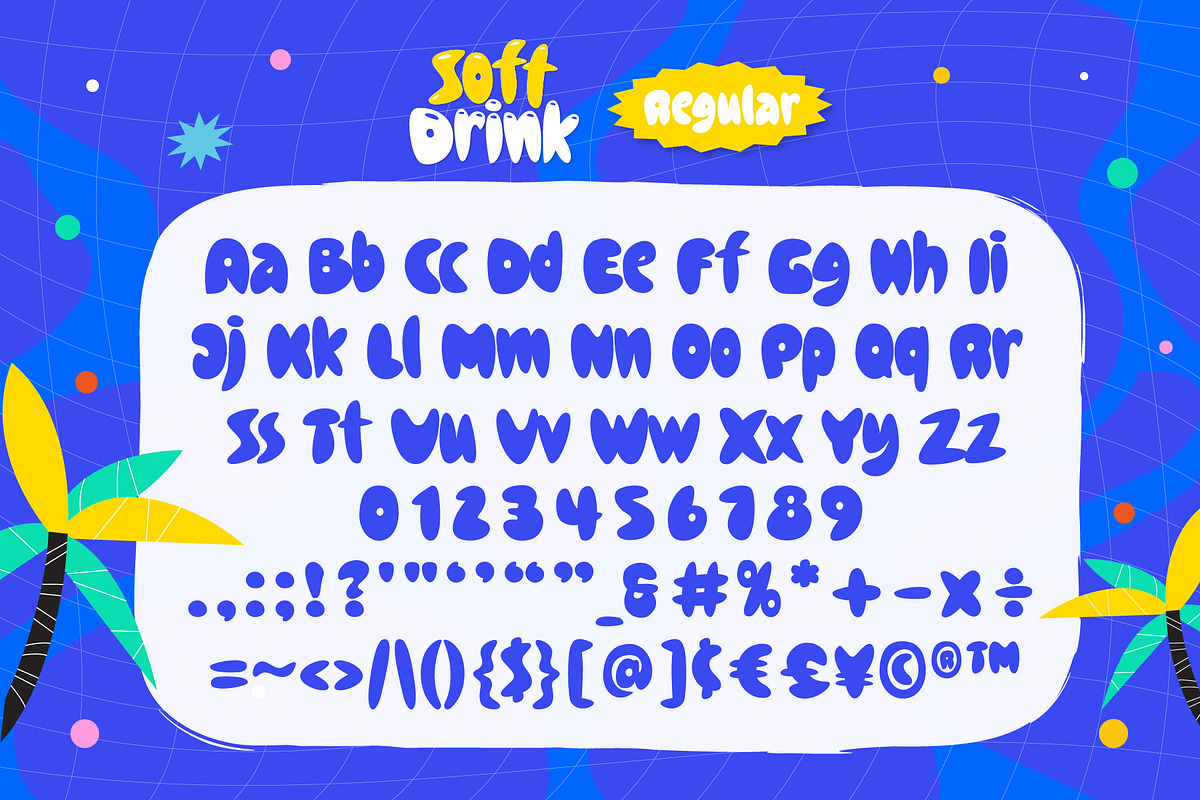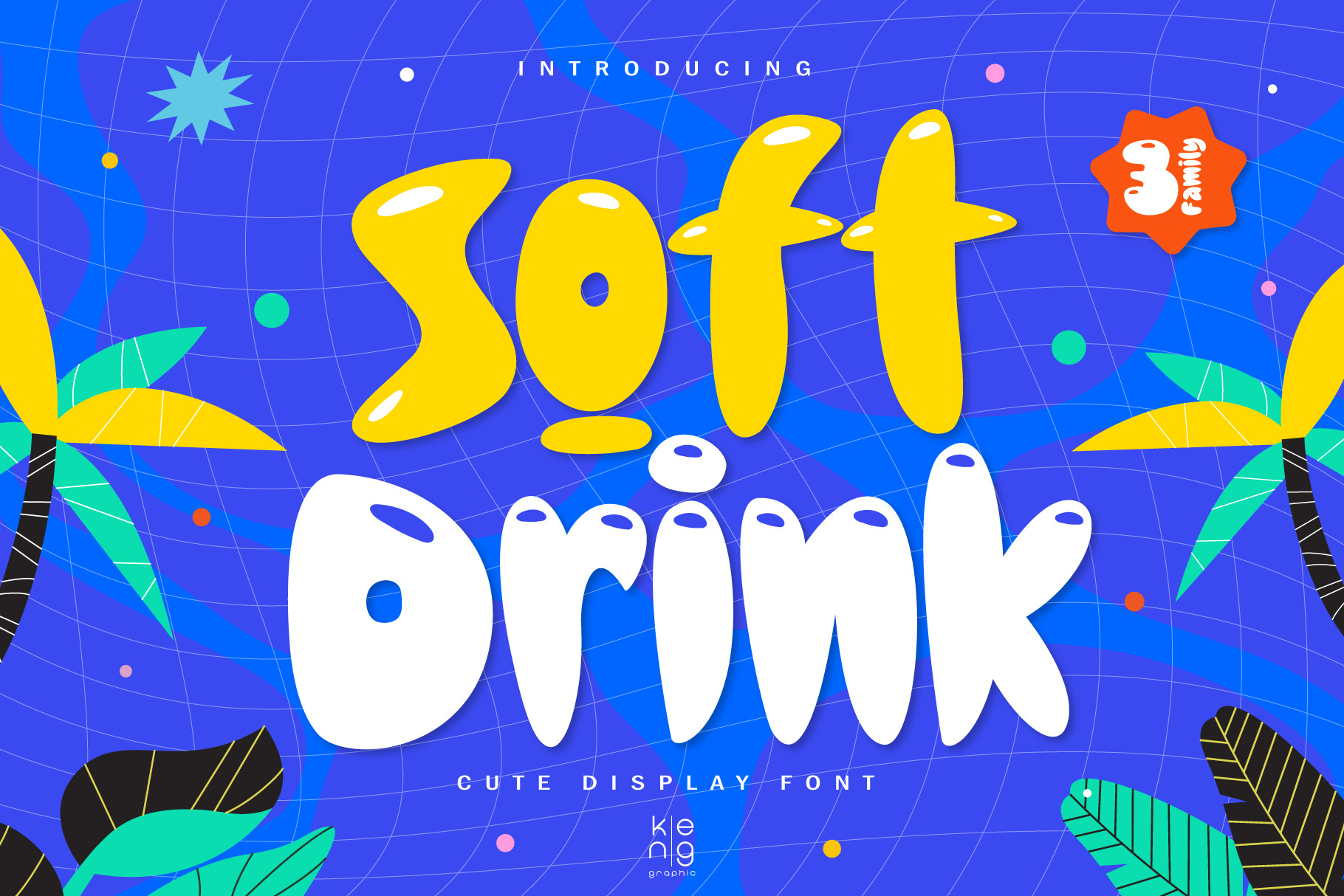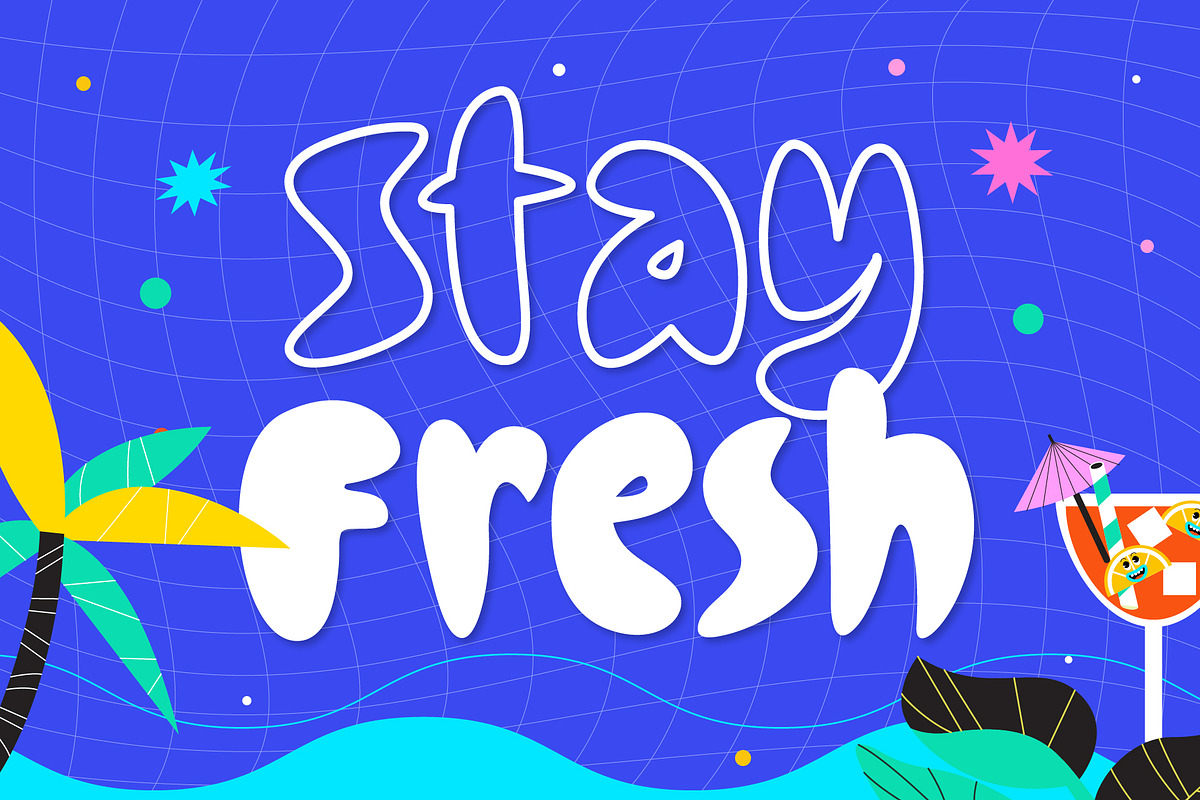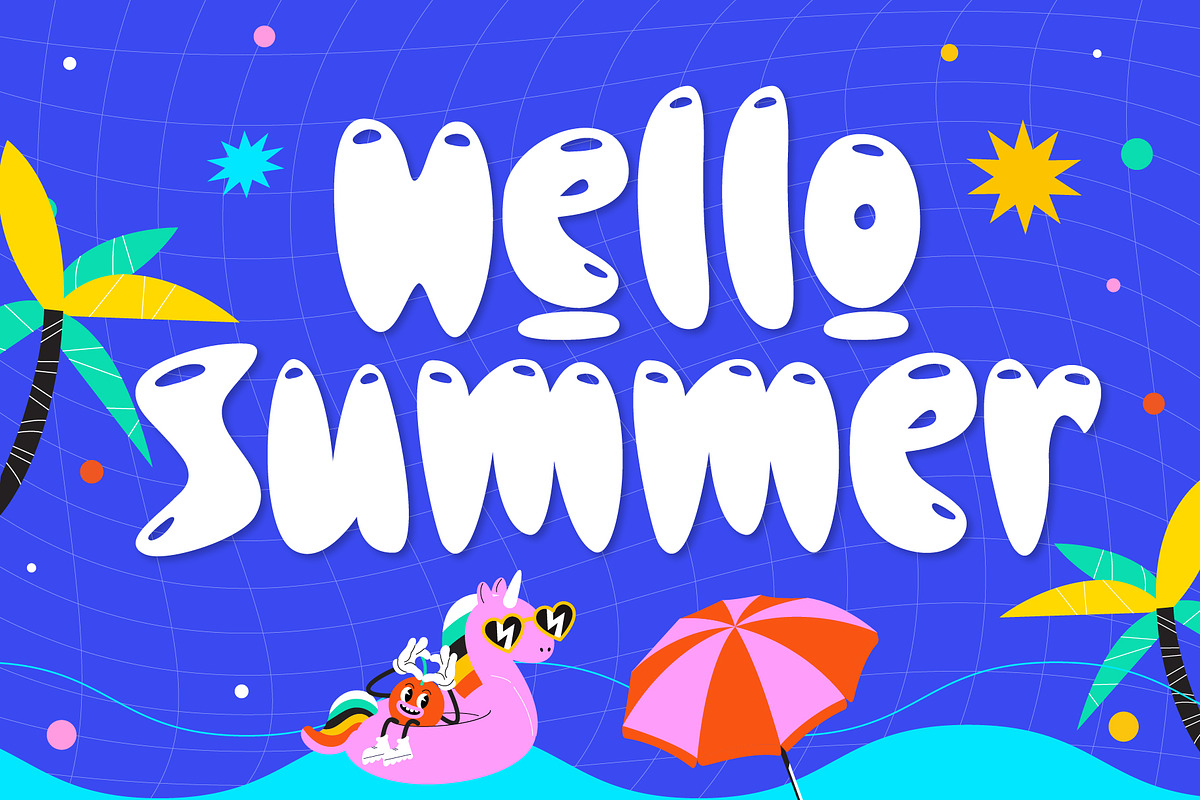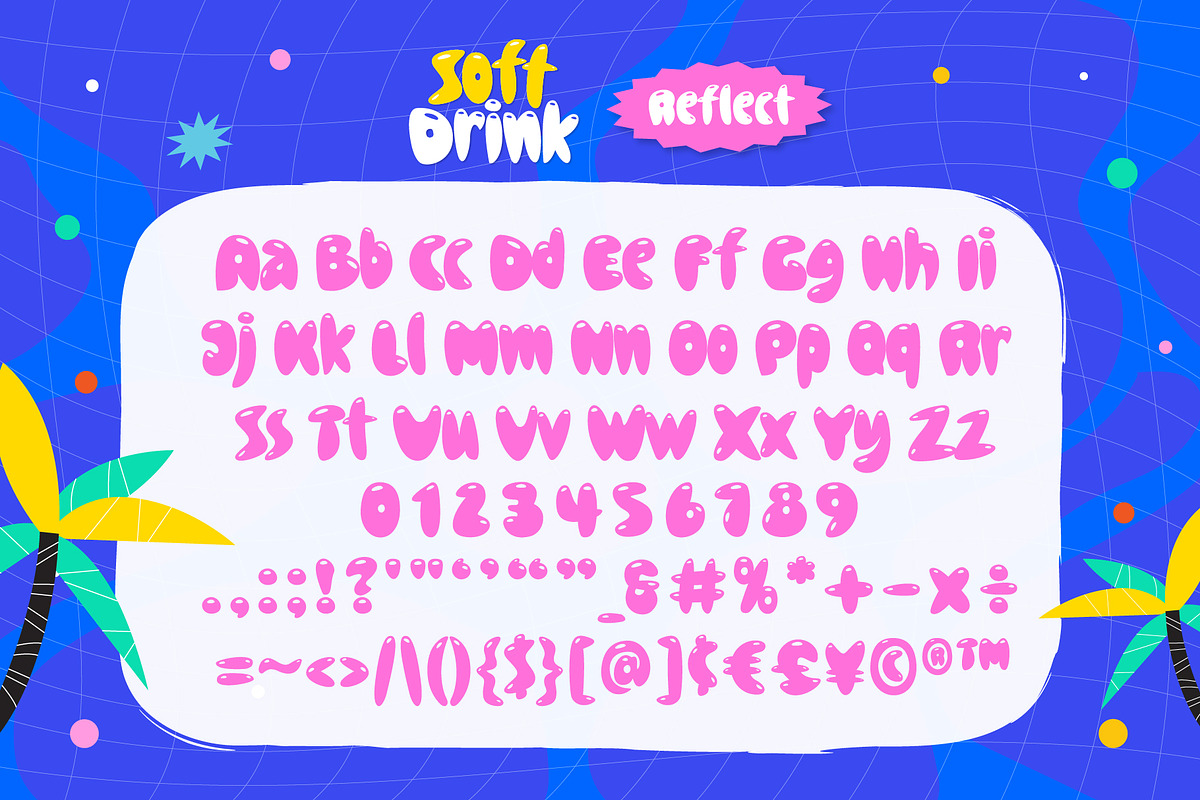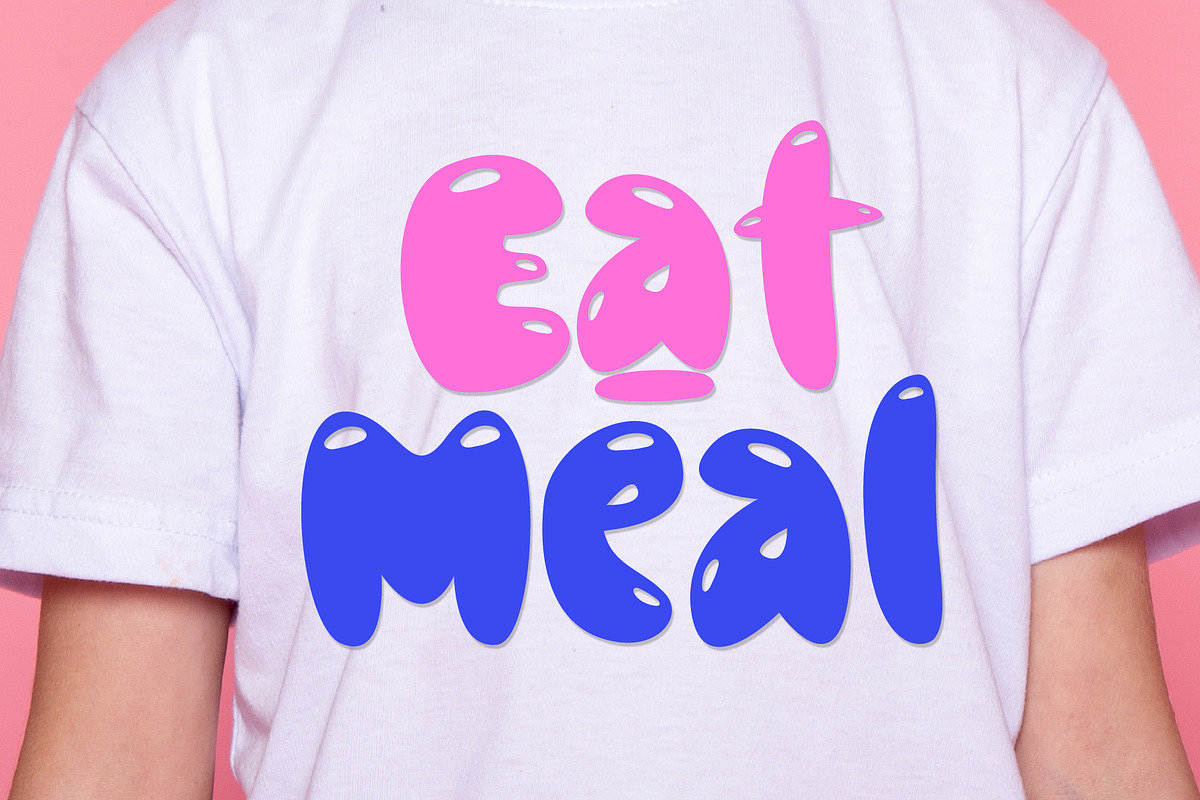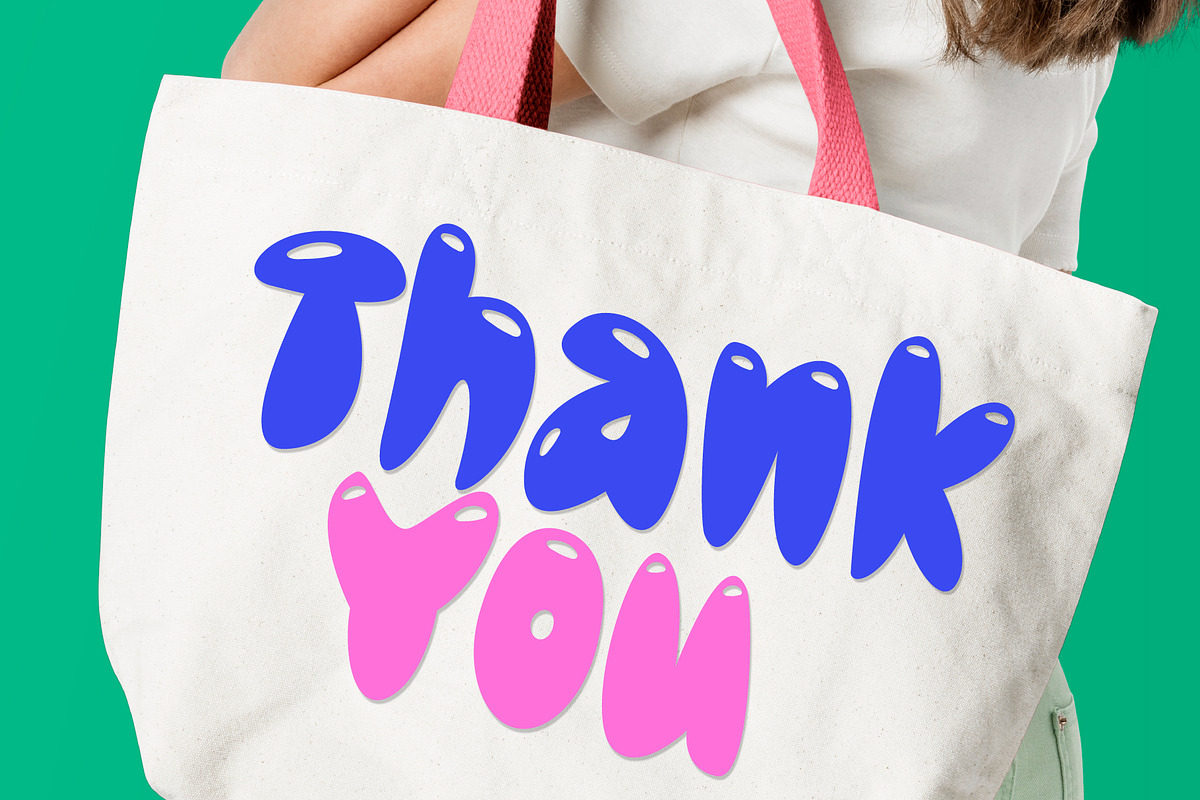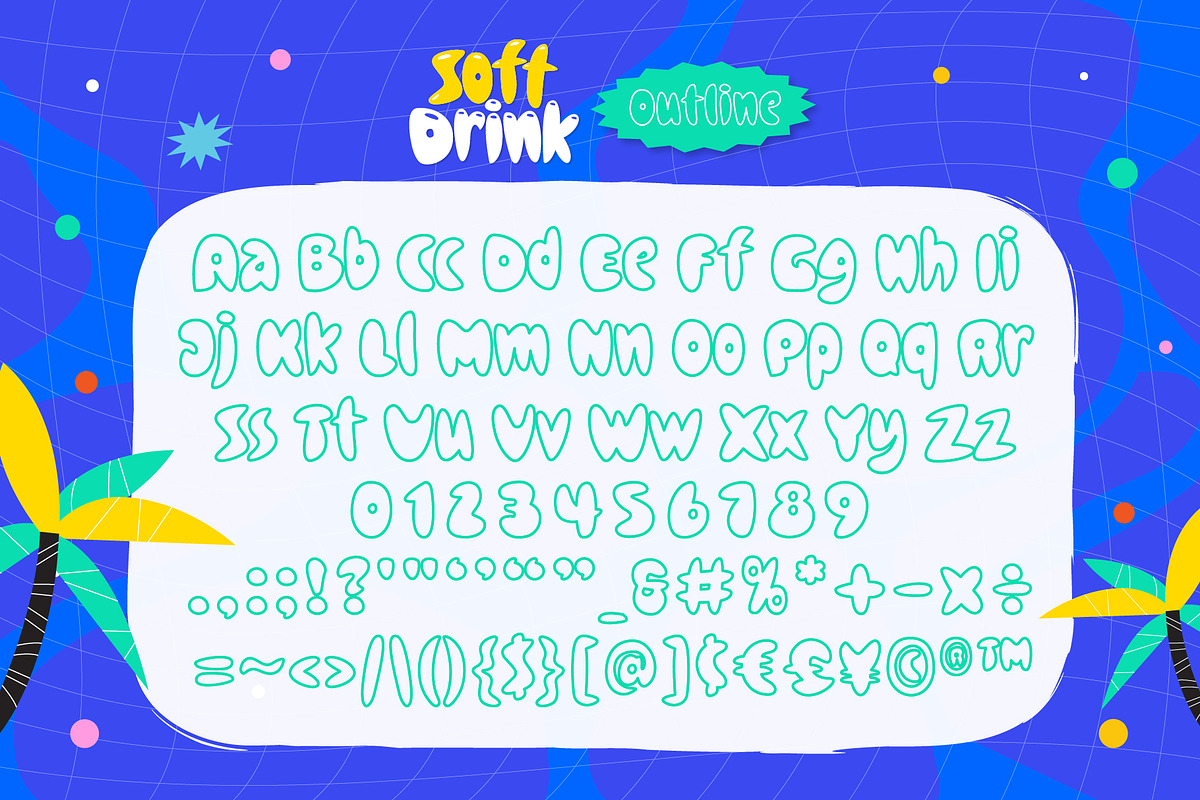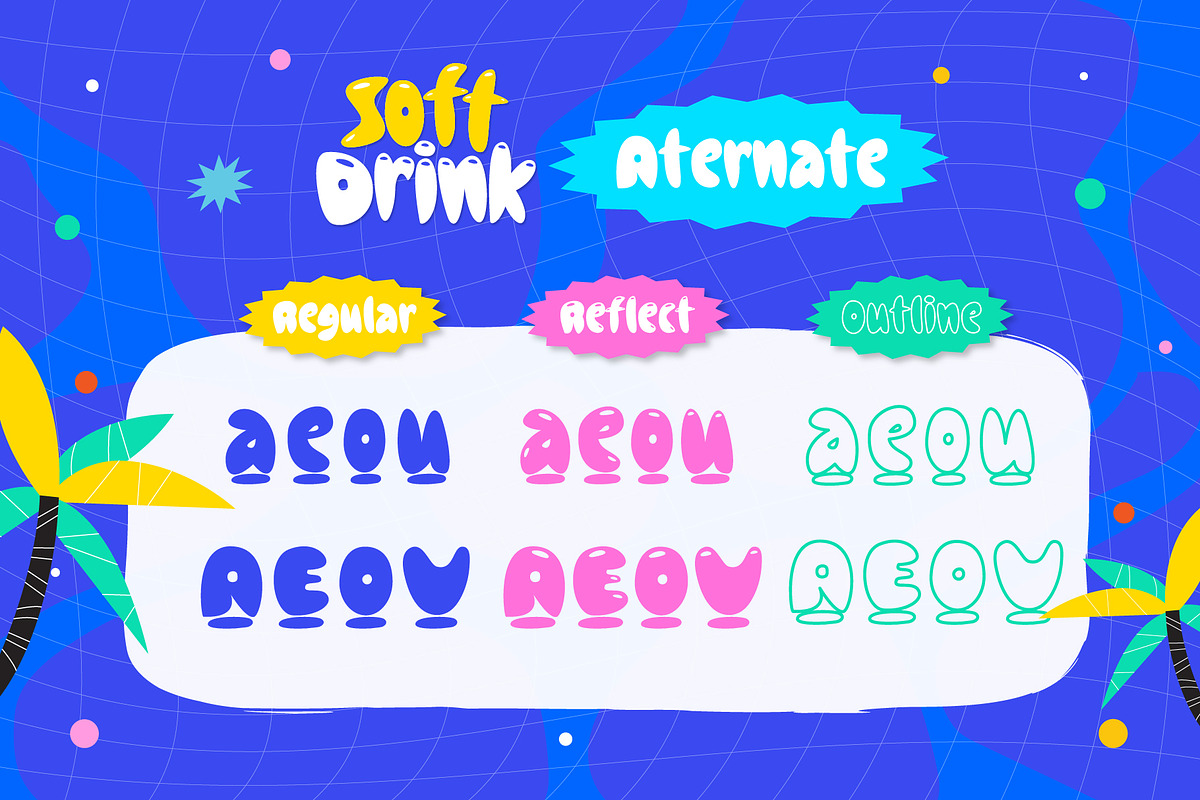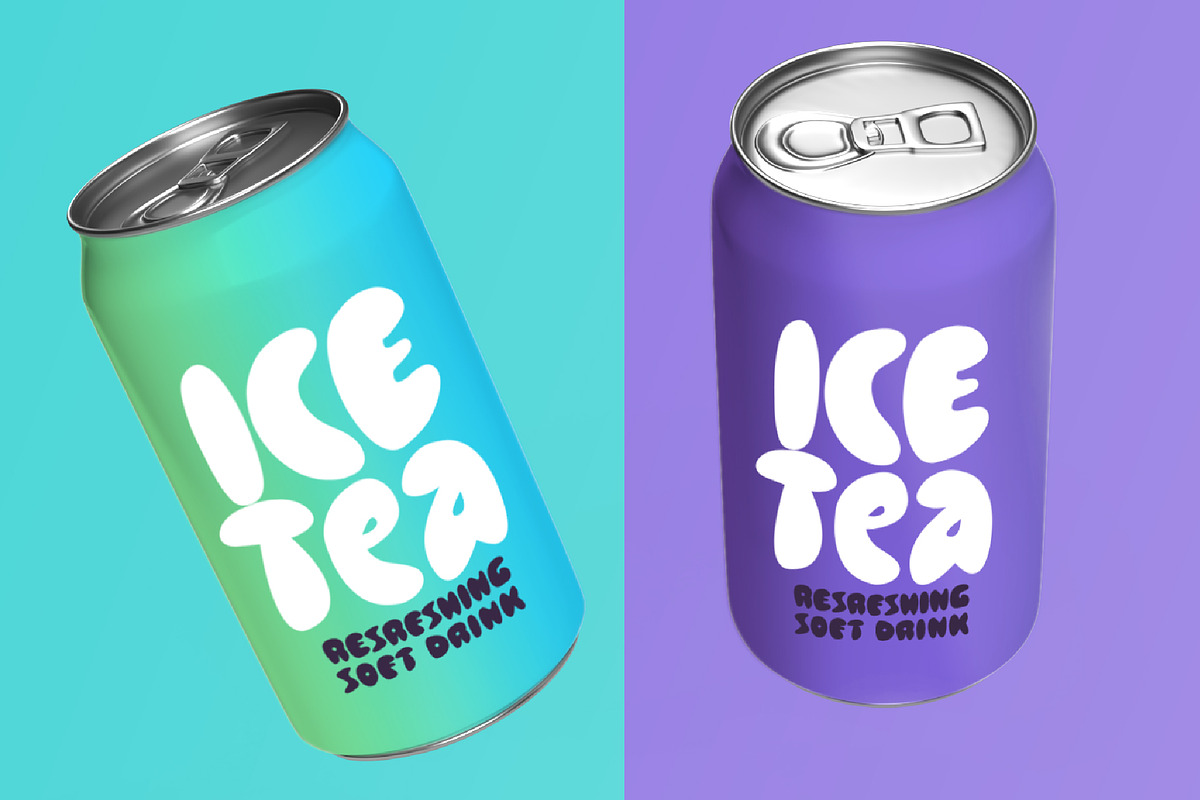
Soft Drink Font
Soft Drink is a fun and unique display font. Anything written in this font will be instantly recognizable and will grab attention. It will work great for comic book layouts, online games, cards, shirts, hats, bags, mugs, posters, food menus, movie titles, eye-catching social media posts, or anything that requires youthfulness and courage.